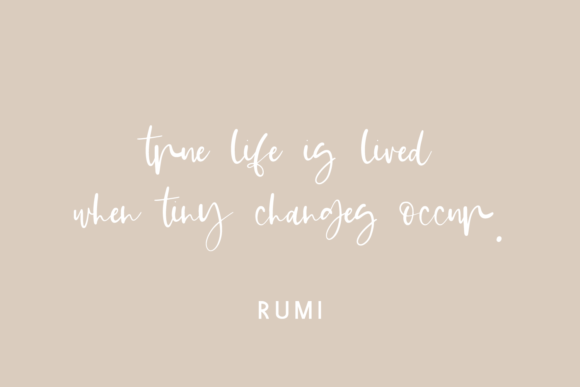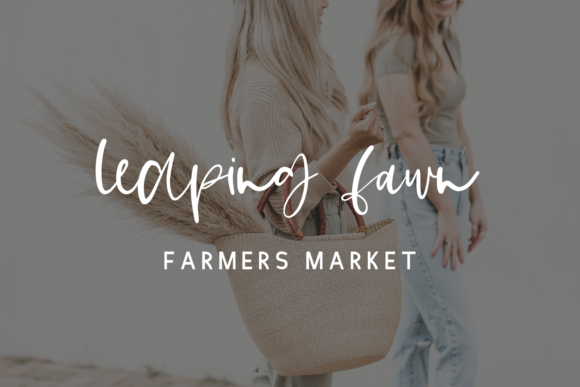
Suggestible Script Font
db-ku.com - Script & Handwritten -- Suggestible Script is a signature font packed with alternates & ligatures to enhance the handwritten look when you use this font in your next project.